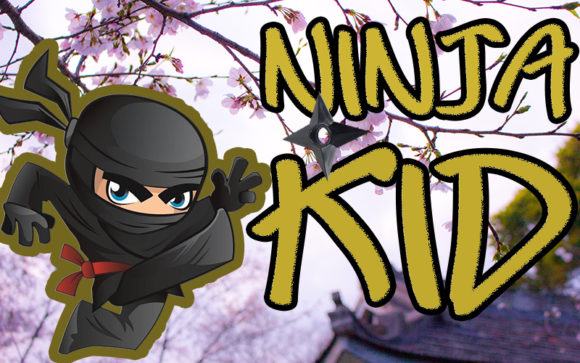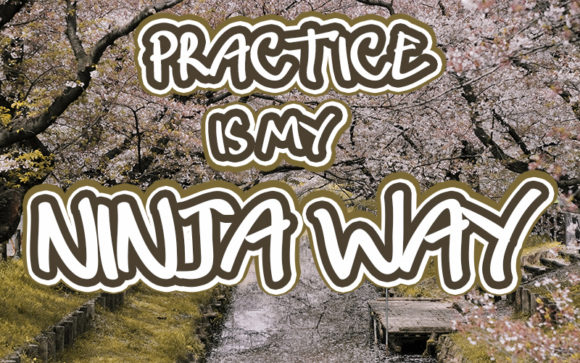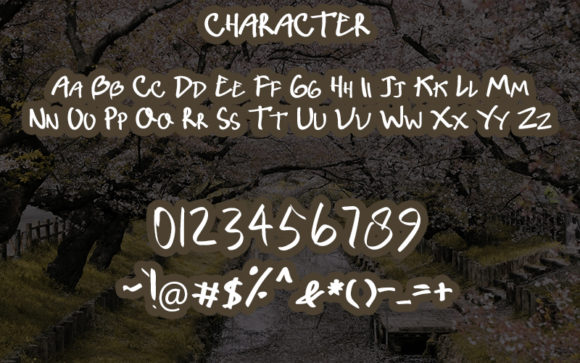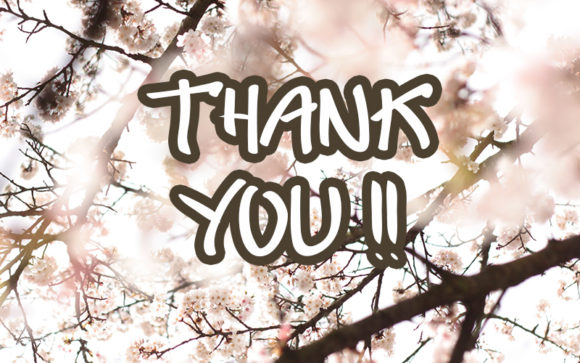
Nin Kid Font
About Nin Kid Font
Nin Kid embodies fun, quirkiness and authenticity. This enchanting handwritten font will turn any creative idea into a true standout.